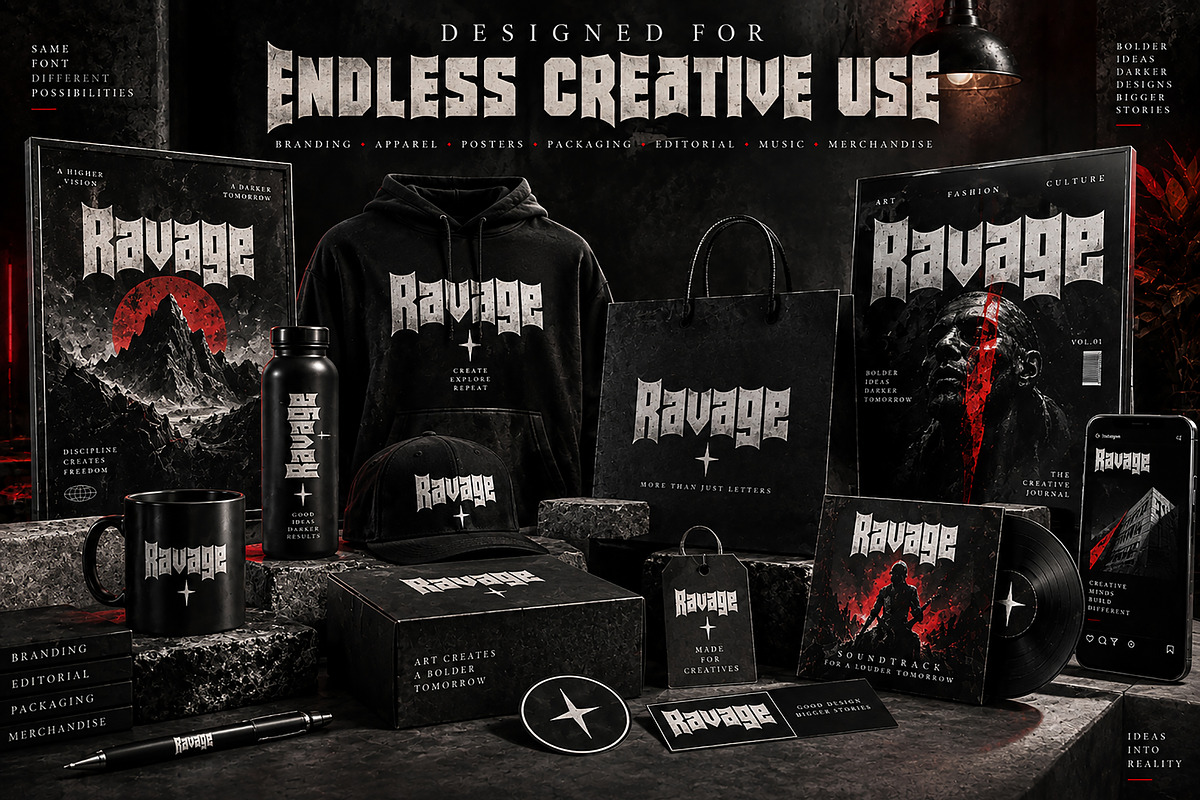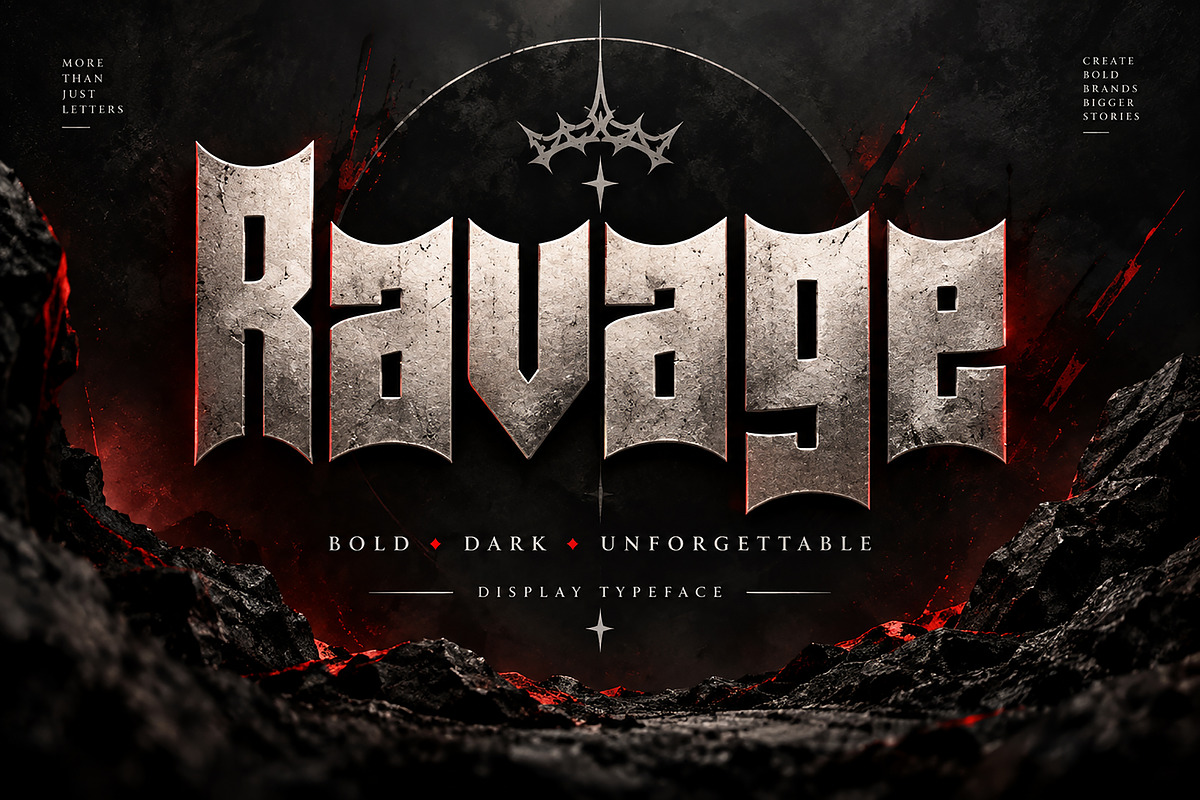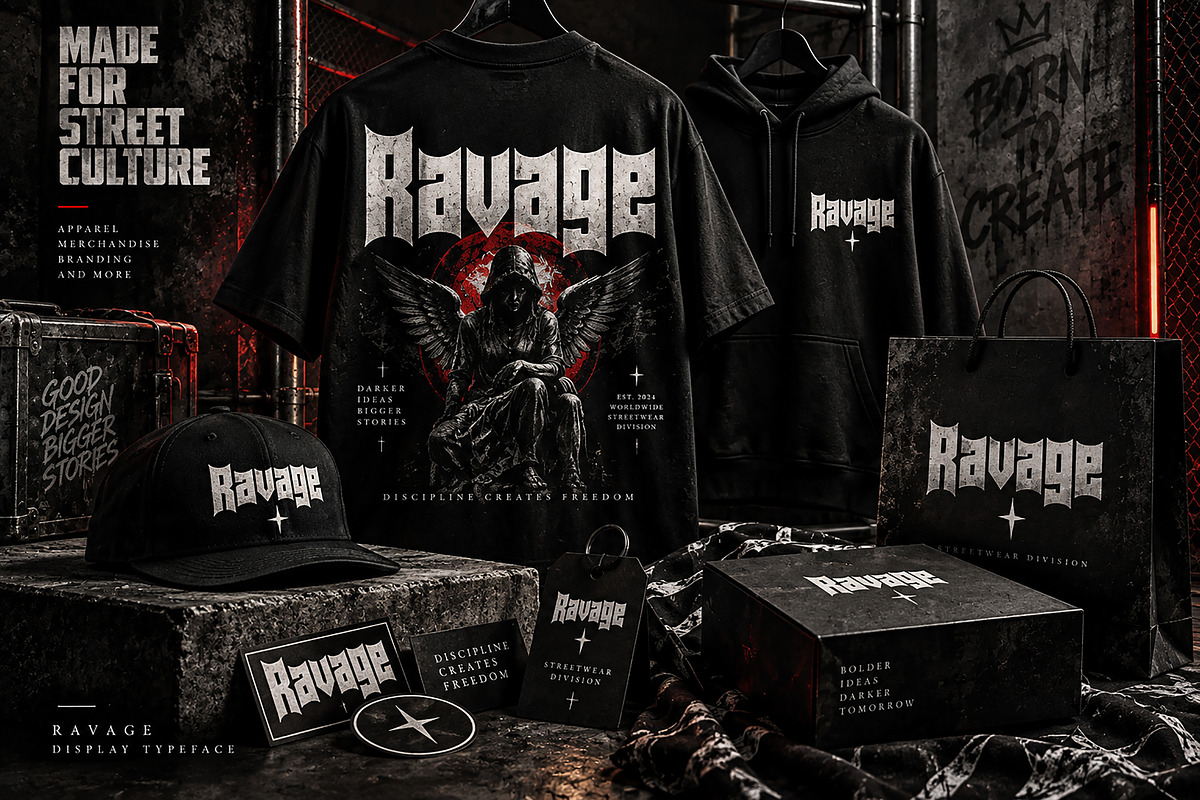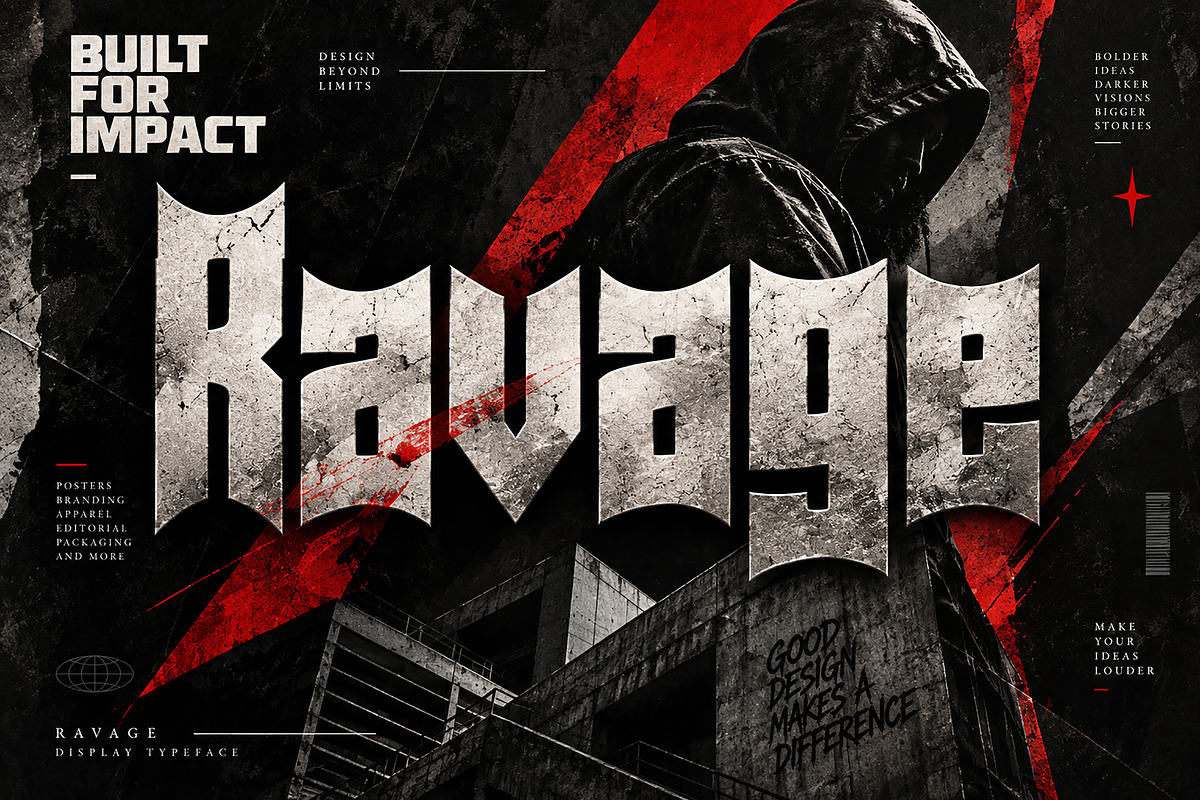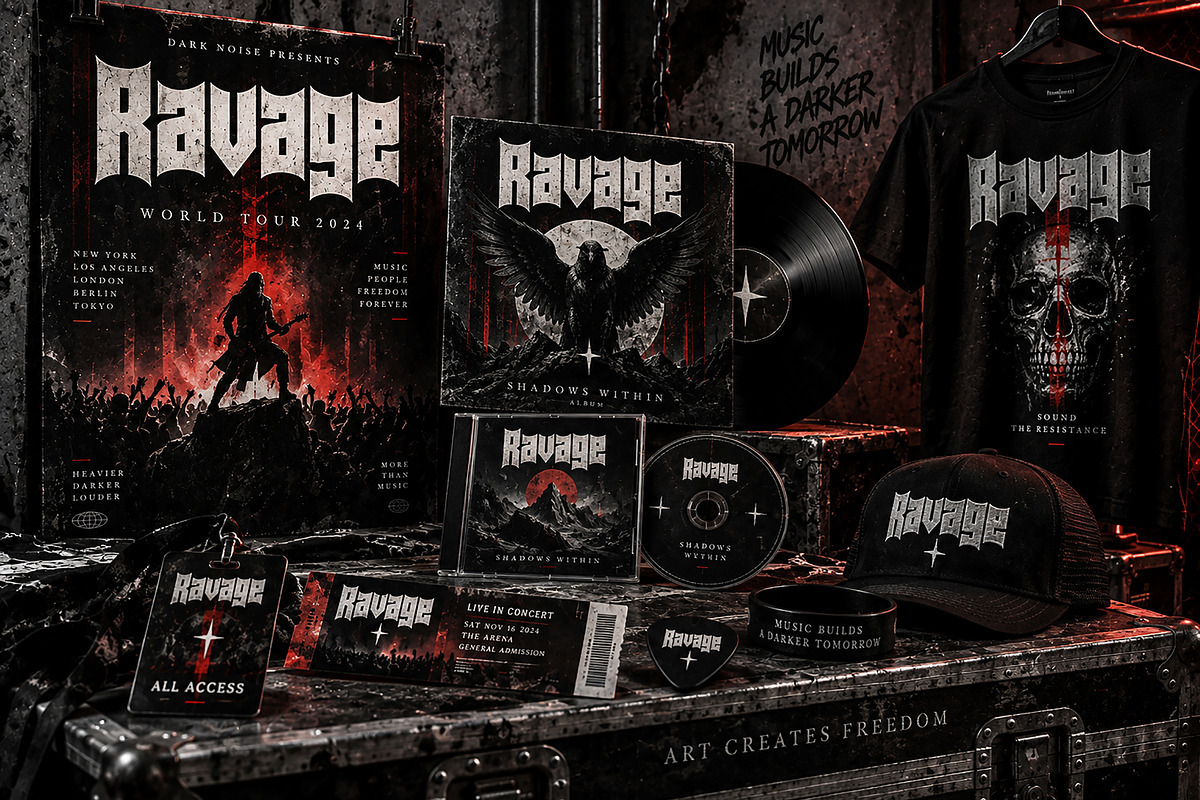
Ravage
Ravage — A Bold Gothic Display Font for Dark, Powerful & Unforgettable Designs.
Ravage is a bold and powerful gothic display font designed to bring an intense, rebellious, and distinctive character to your creative projects. Its sharp, angular letterforms and dramatic silhouette make it an excellent choice for designs that need a strong visual impact.
Perfect for branding, logos, posters, album artwork, music projects, streetwear, apparel, merchandise, packaging, editorial designs, event graphics, gaming projects, social media artwork, and promotional materials.
Whether you are creating a powerful brand identity, an edgy fashion collection, a dark music campaign, or eye-catching poster artwork, Ravage is built to make your typography stand out.
Bold gothic display style
Sharp and distinctive letterforms
Strong visual presence
Ideal for headlines and display typography
Suitable for both digital and print projects
Great for branding and merchandise
Perfect for posters, apparel, music, and editorial design